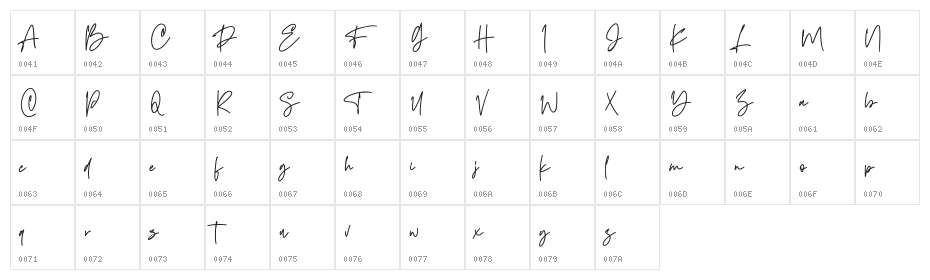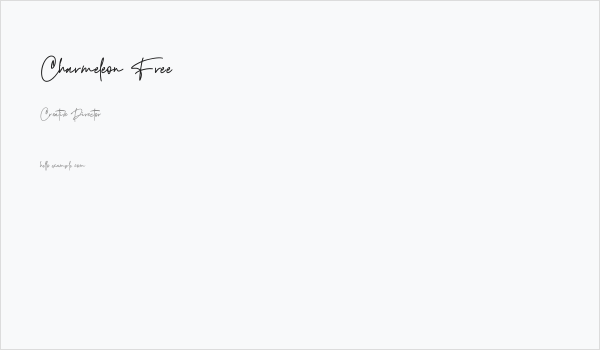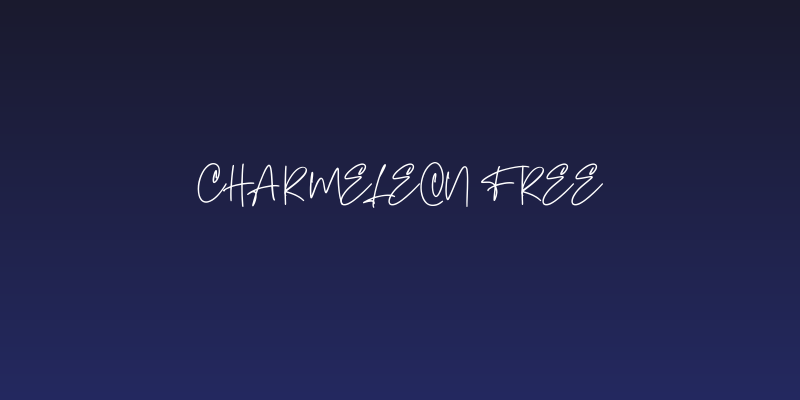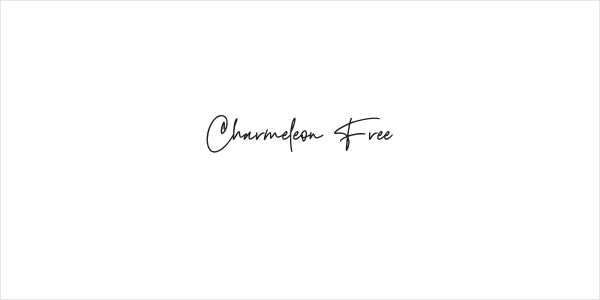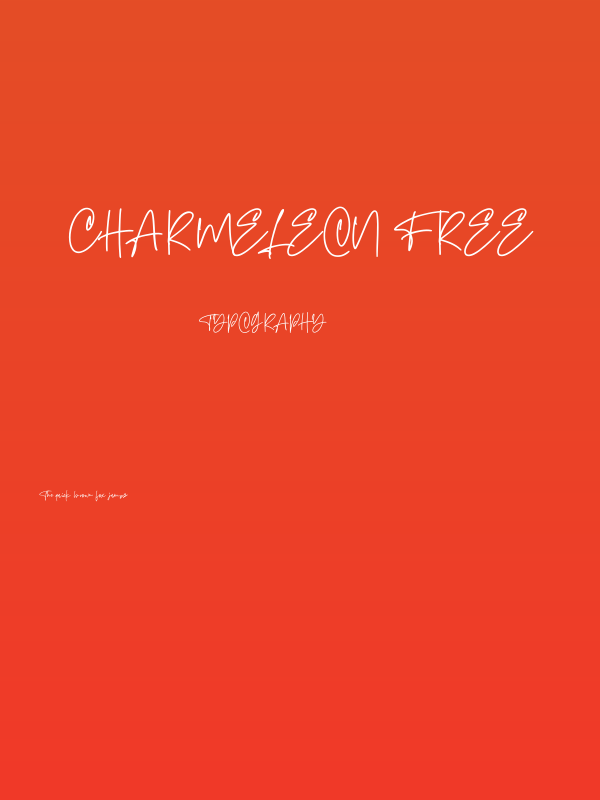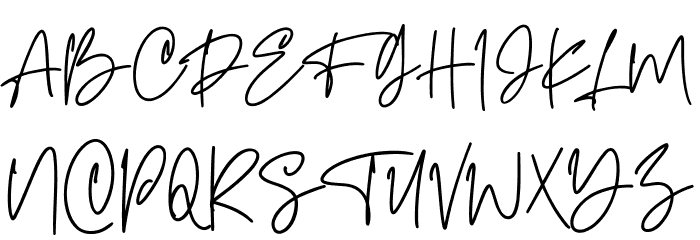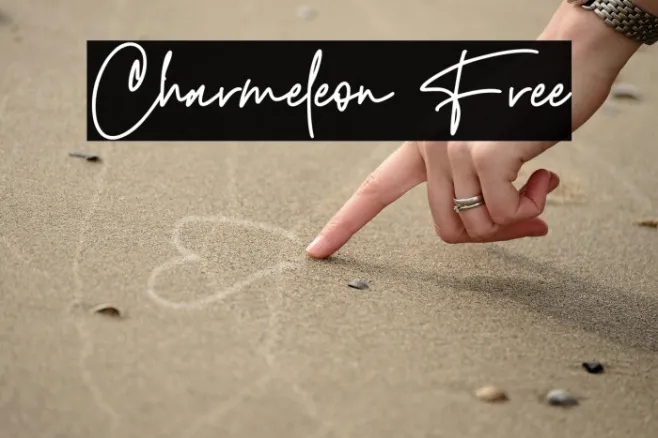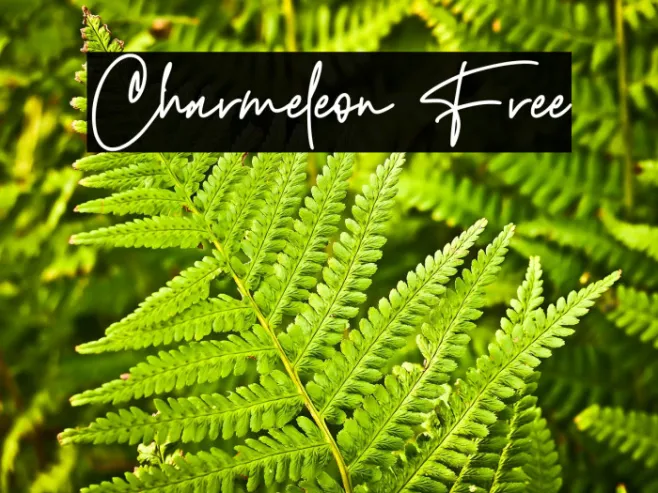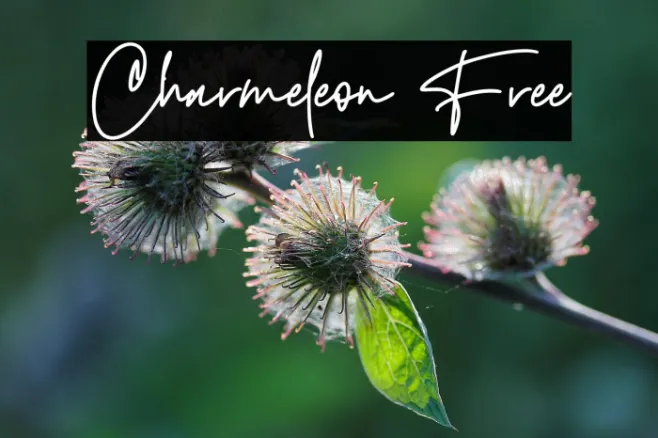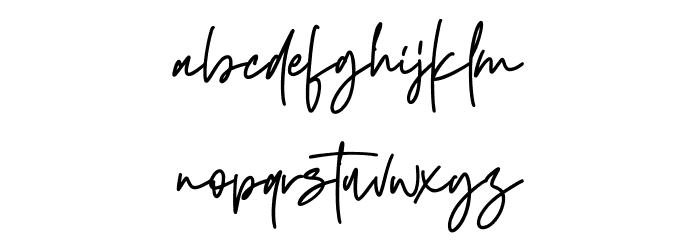
Charmeleon Free Font
Charmeleon Free Description
This font features a lively and expressive handwritten style, characterized by fluid, interconnected strokes that convey a sense of elegance and spontaneity. The uppercase and lowercase letters maintain a consistent flow, with each character exhibiting unique curves and loops that add to its charm. The font's design is reminiscent of personal handwriting, making it ideal for projects that require a personal touch. The numerals and special characters are crafted with the same attention to detail, ensuring a cohesive look across all text elements.
| Proposed Projects | Ideal for wedding invitations, personal branding, greeting cards, and social media graphics. |